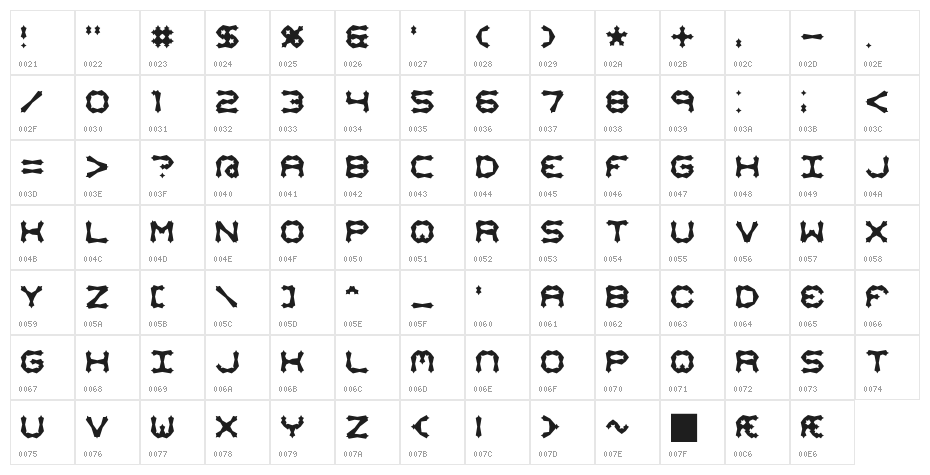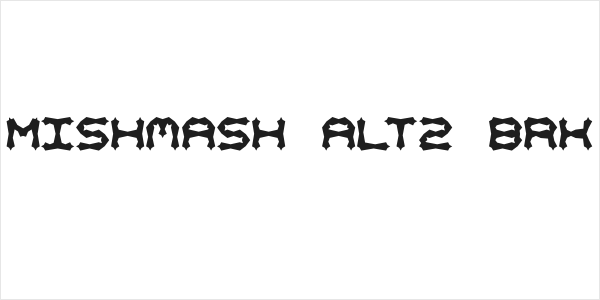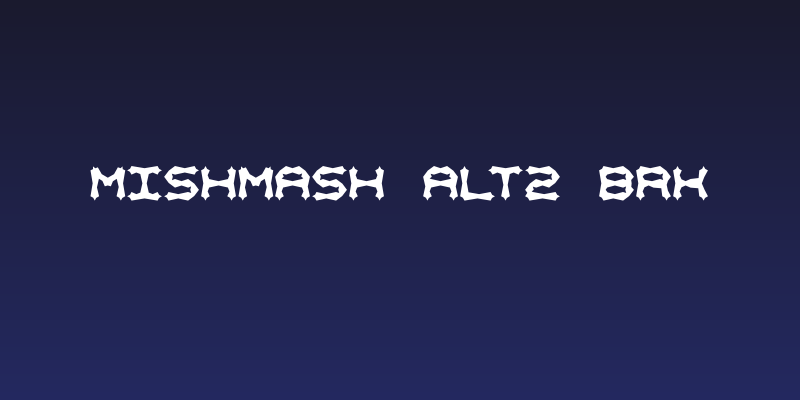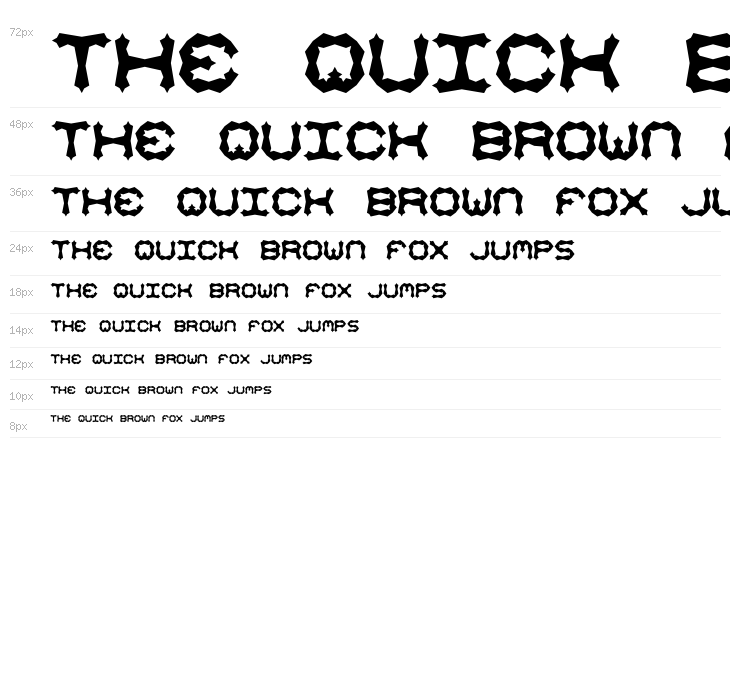
Mishmash ALT2 BRK Font
Mishmash ALT2 BRK Description
This font features a highly decorative and edgy style, characterized by sharp, angular forms that create a sense of movement and intensity. Each character is uniquely crafted with jagged edges and irregular shapes, giving it a chaotic yet artistic appearance. The uppercase and lowercase letters maintain a consistent design, while the numbers and special characters follow the same aesthetic, ensuring a cohesive look across all text. This font's bold and striking presence makes it ideal for projects that require a strong visual impact.
| Proposed Projects | Ideal for album covers, posters, video game titles, and any project requiring a bold, artistic statement. |